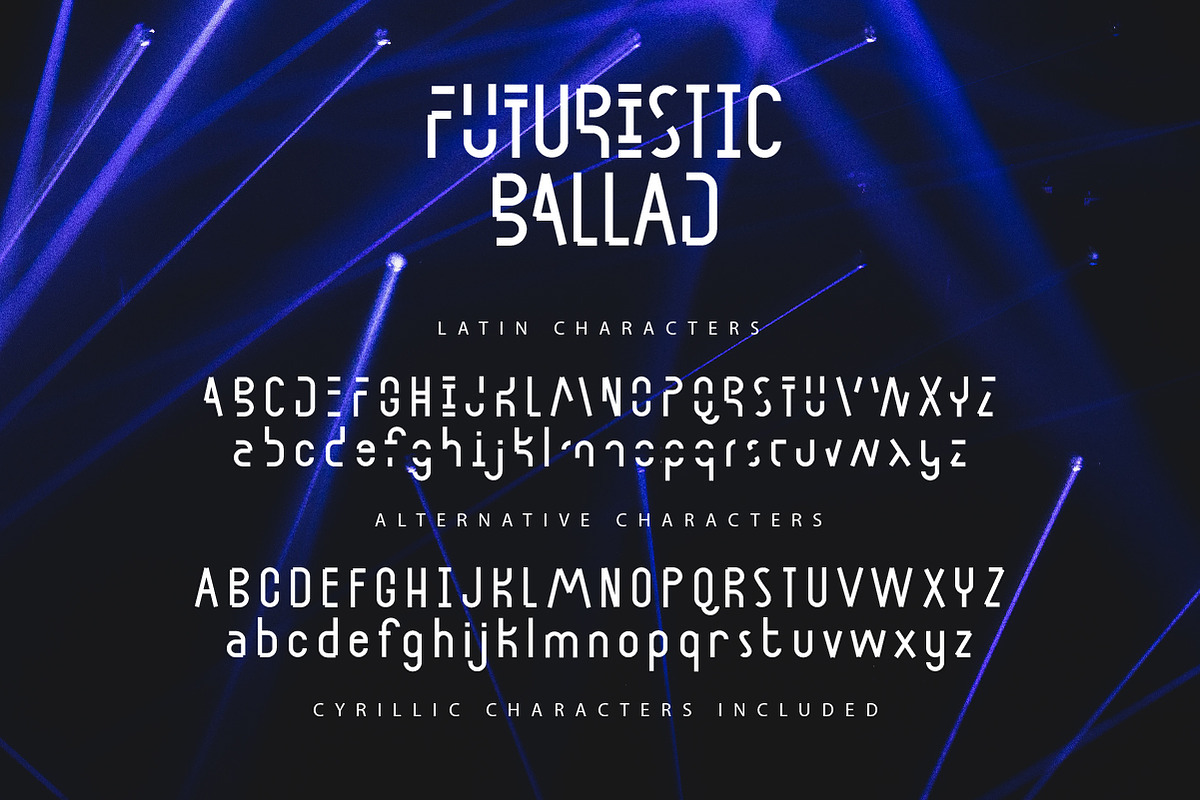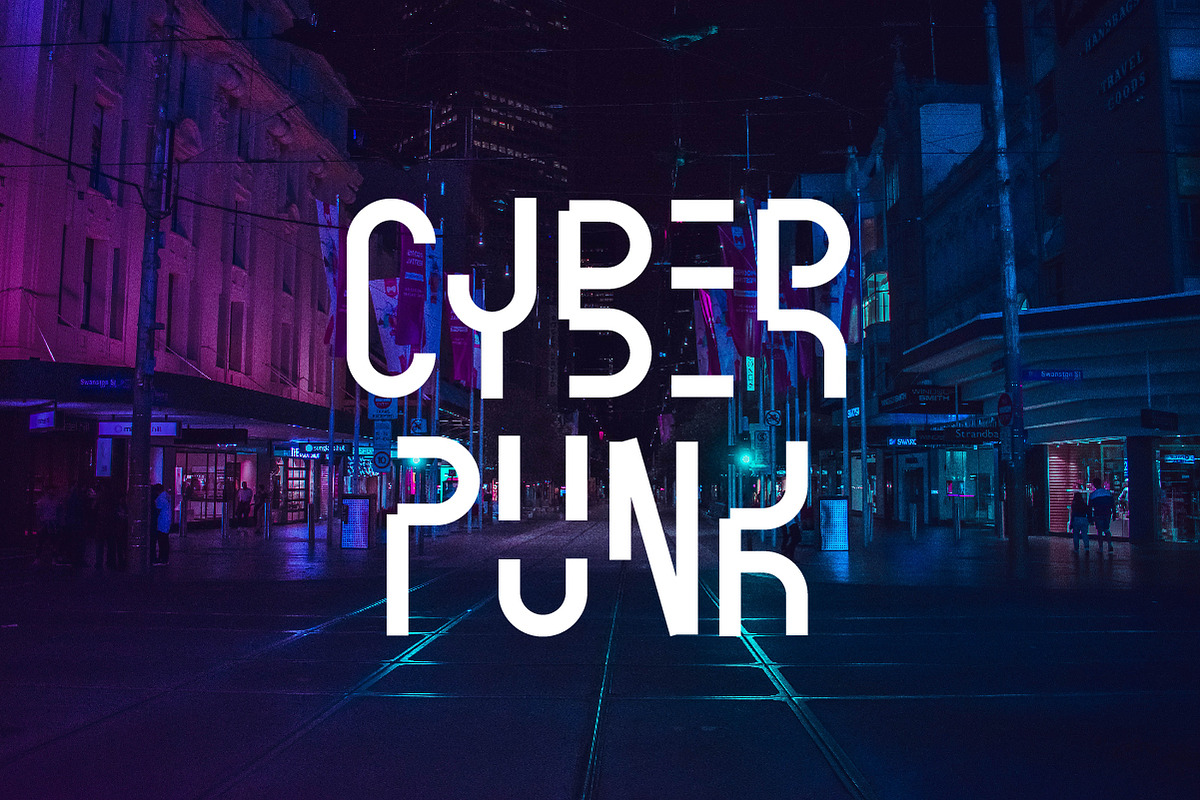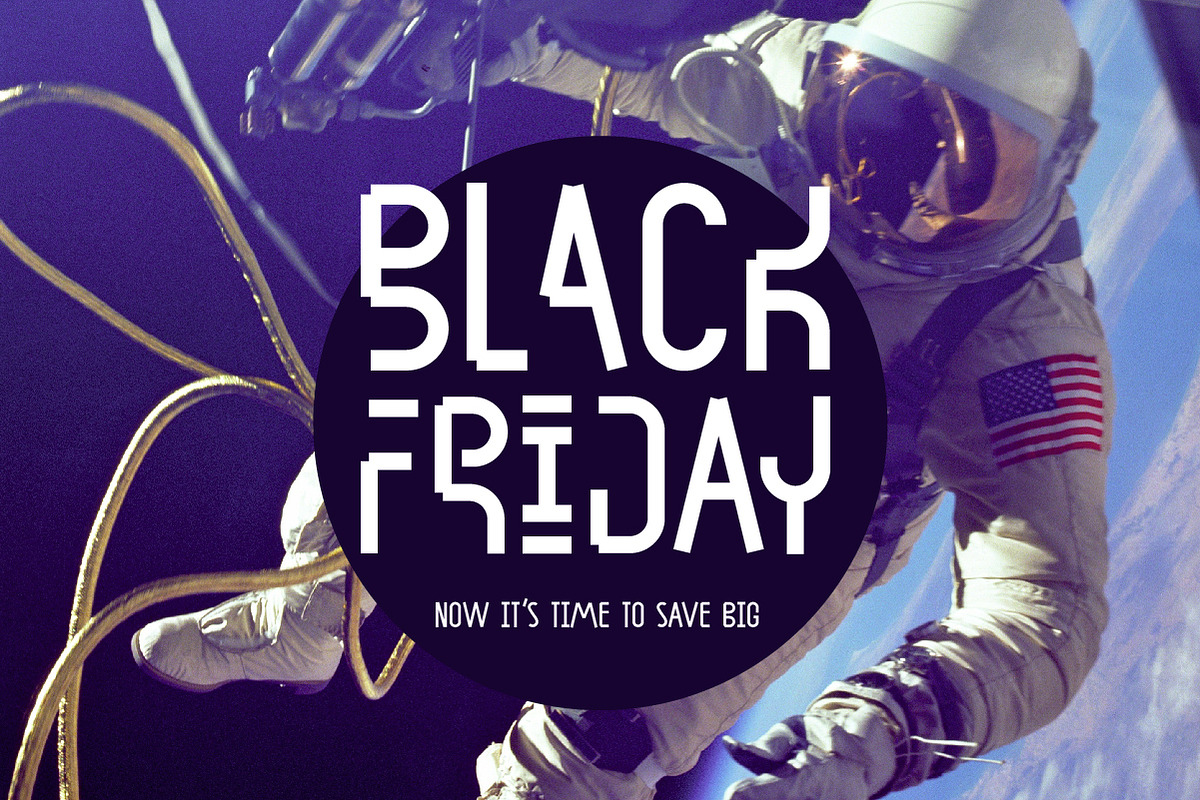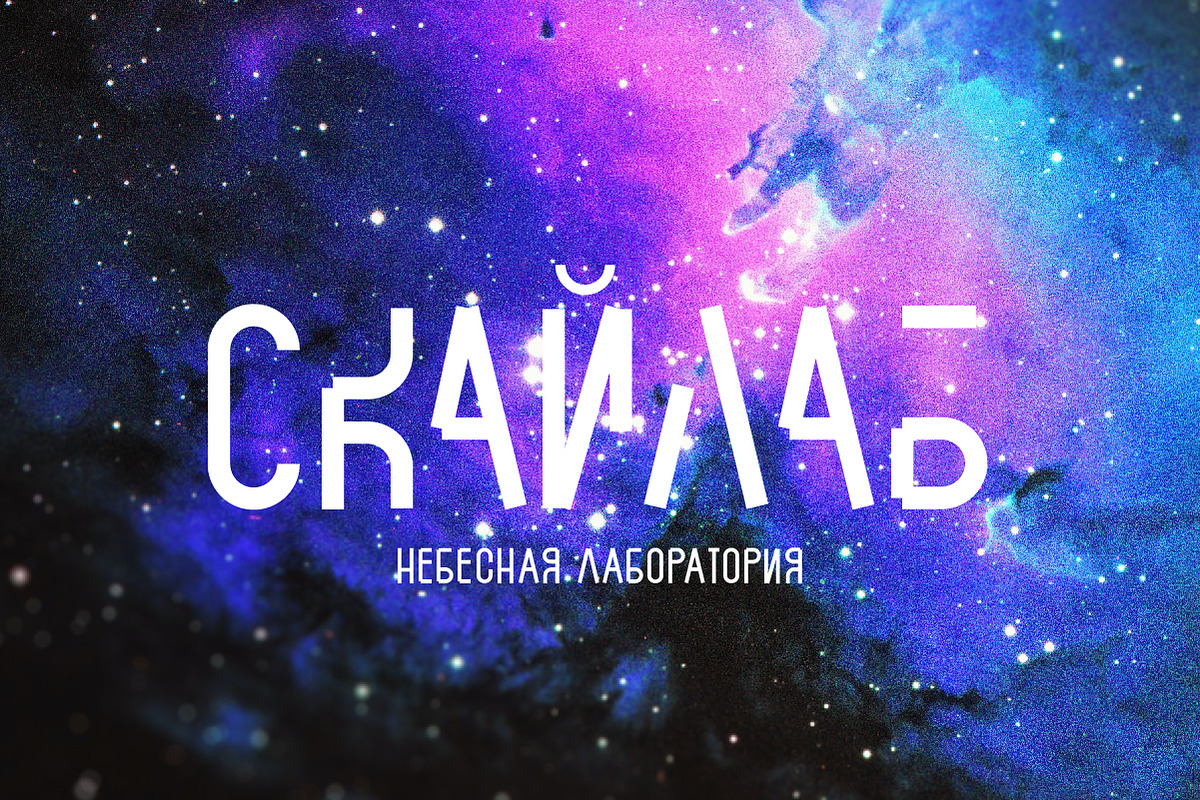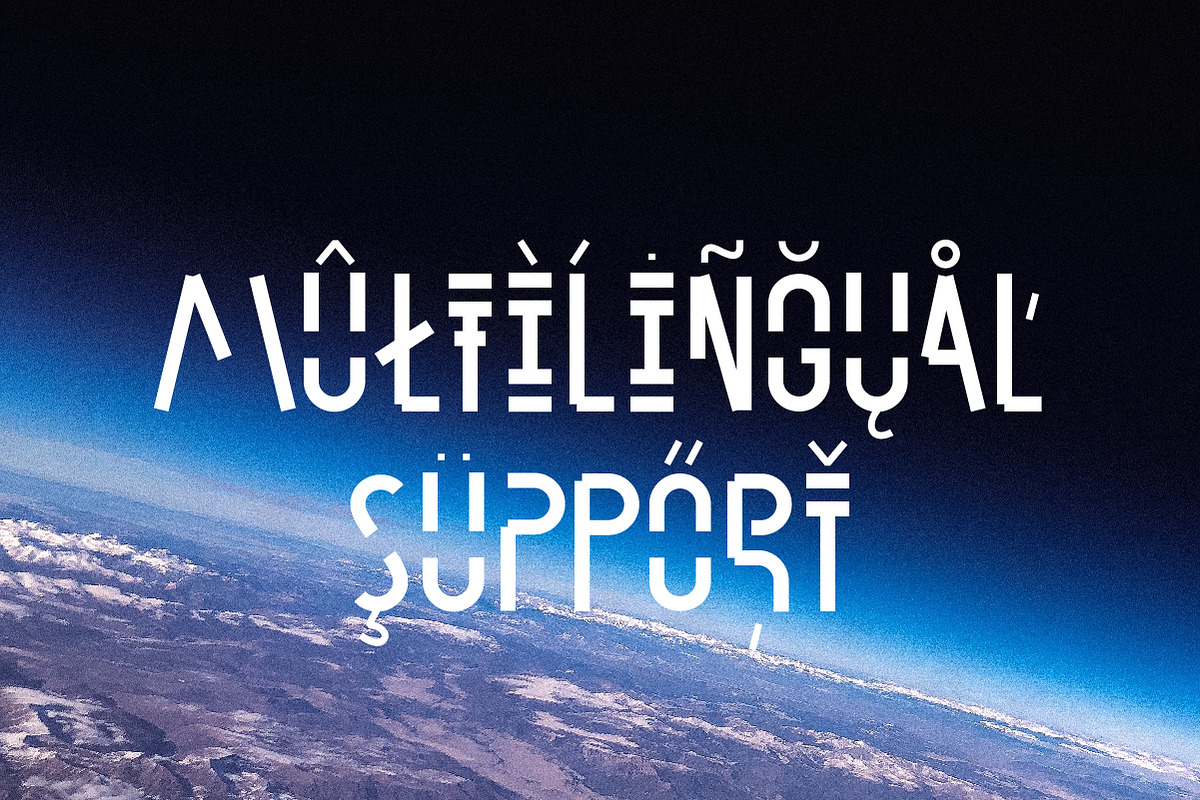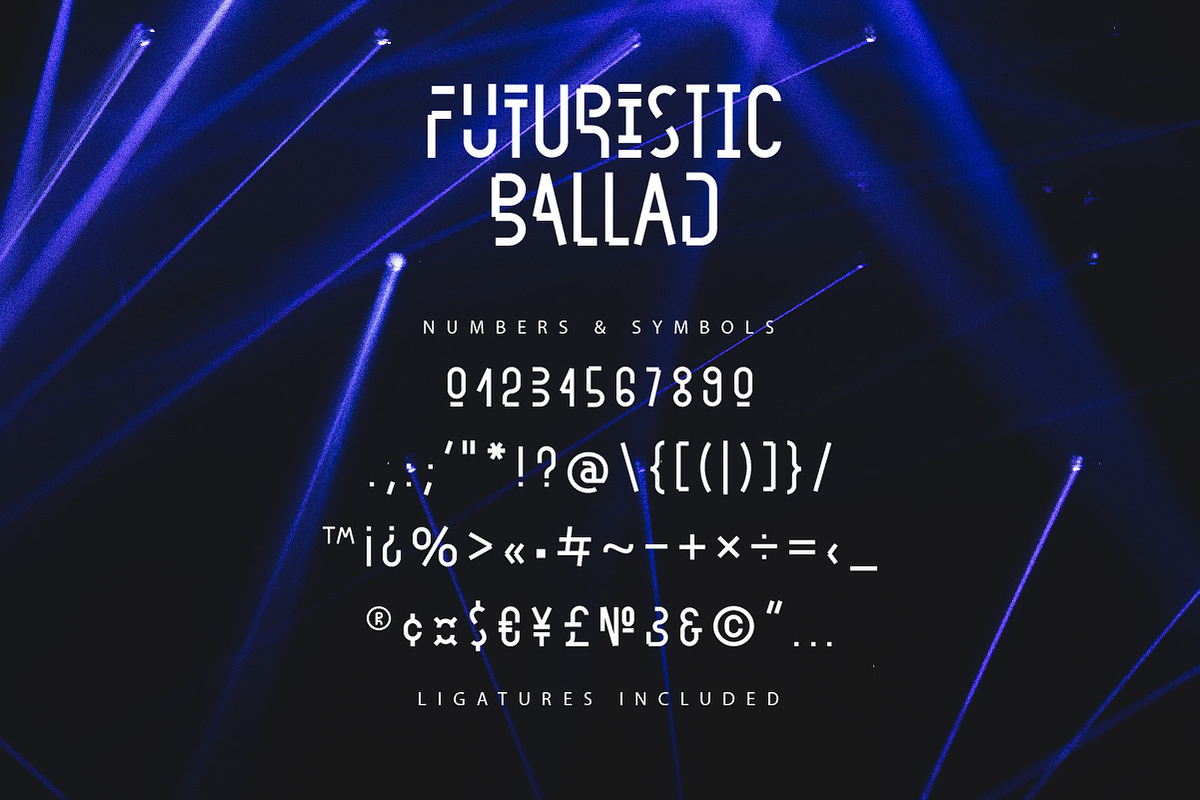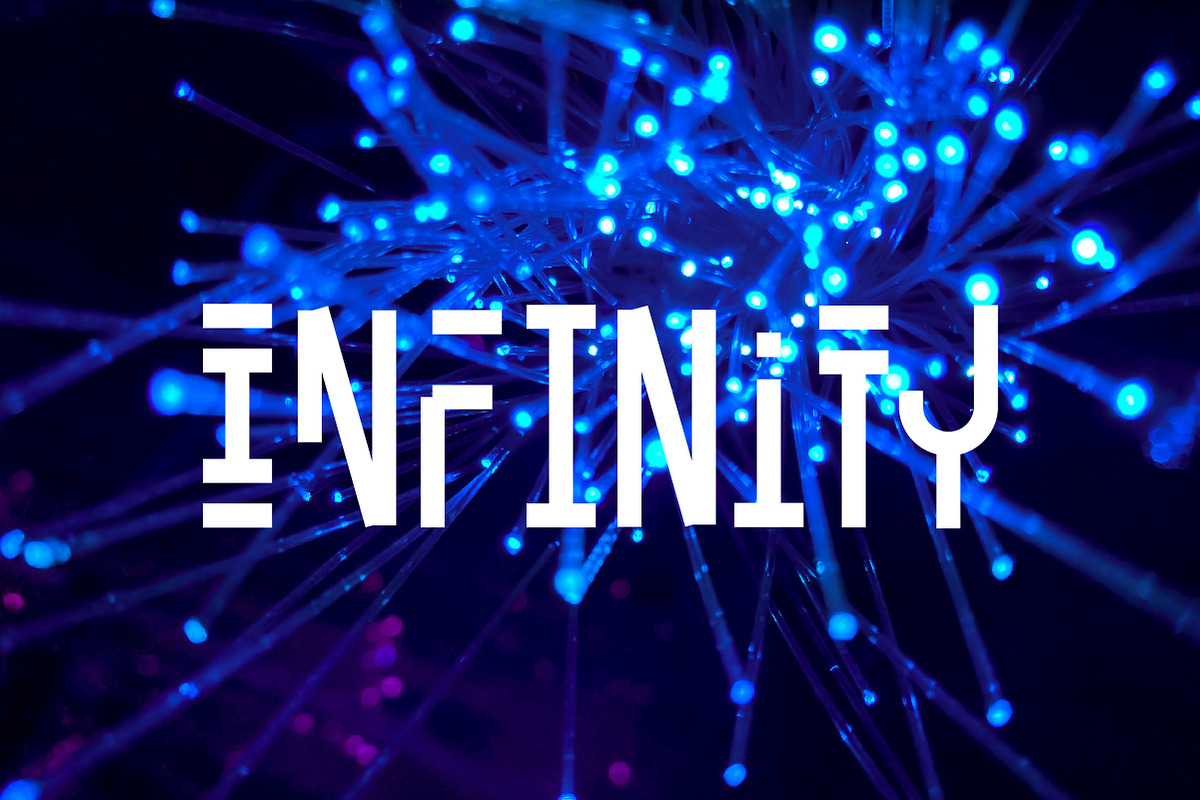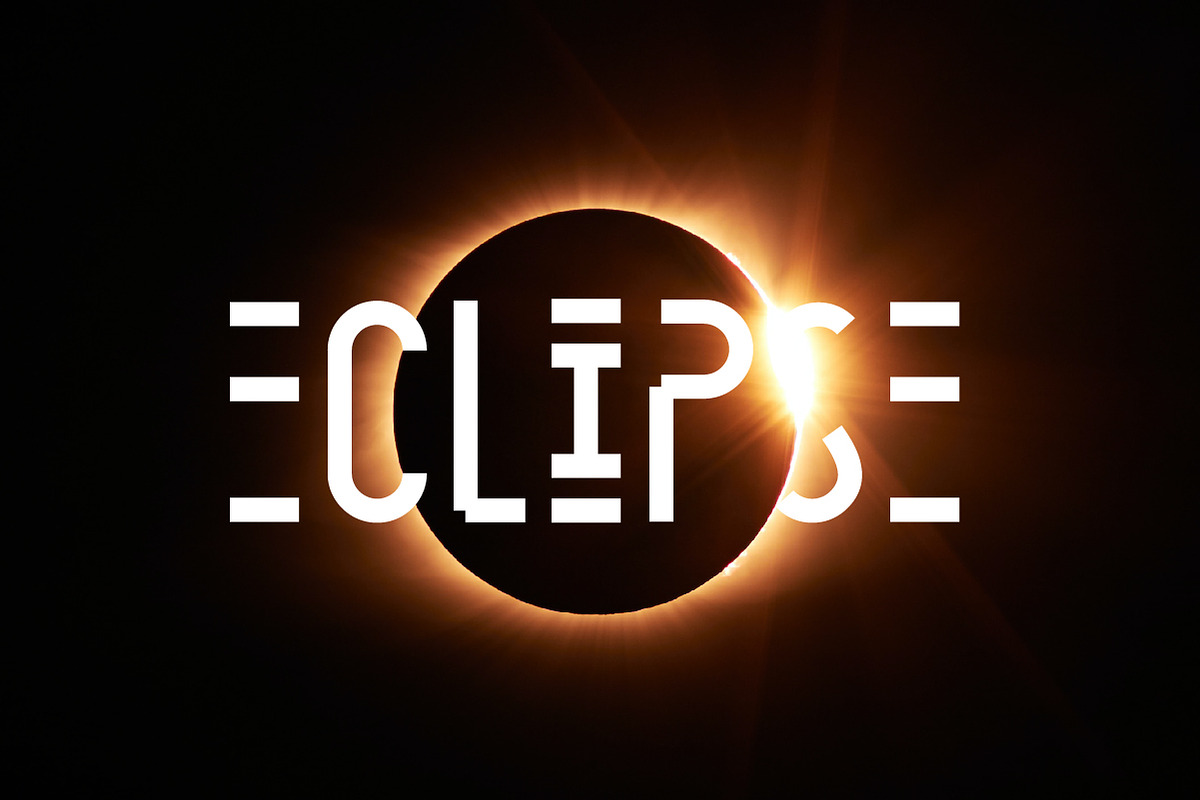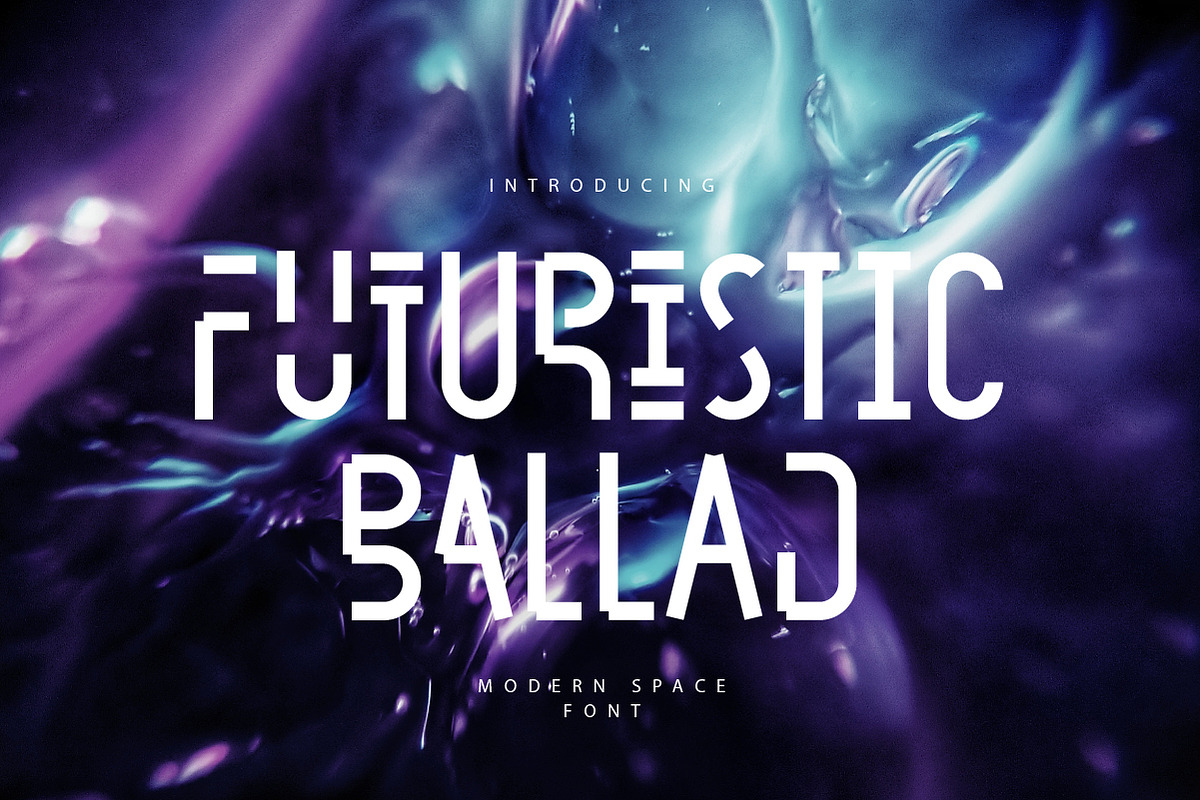
Futuristic Ballad
Futuristic Ballad is a modern, stylish and elegant font. It comes with uppercase and lowercase characters, a set of punctuation marks, numbers, Cyrillic characters, an alternative set of latin and cyrillic, ligatures and multilingual support.
This font is suitable for use in future technology projects, branding, logos, posters, product packaging, etc.